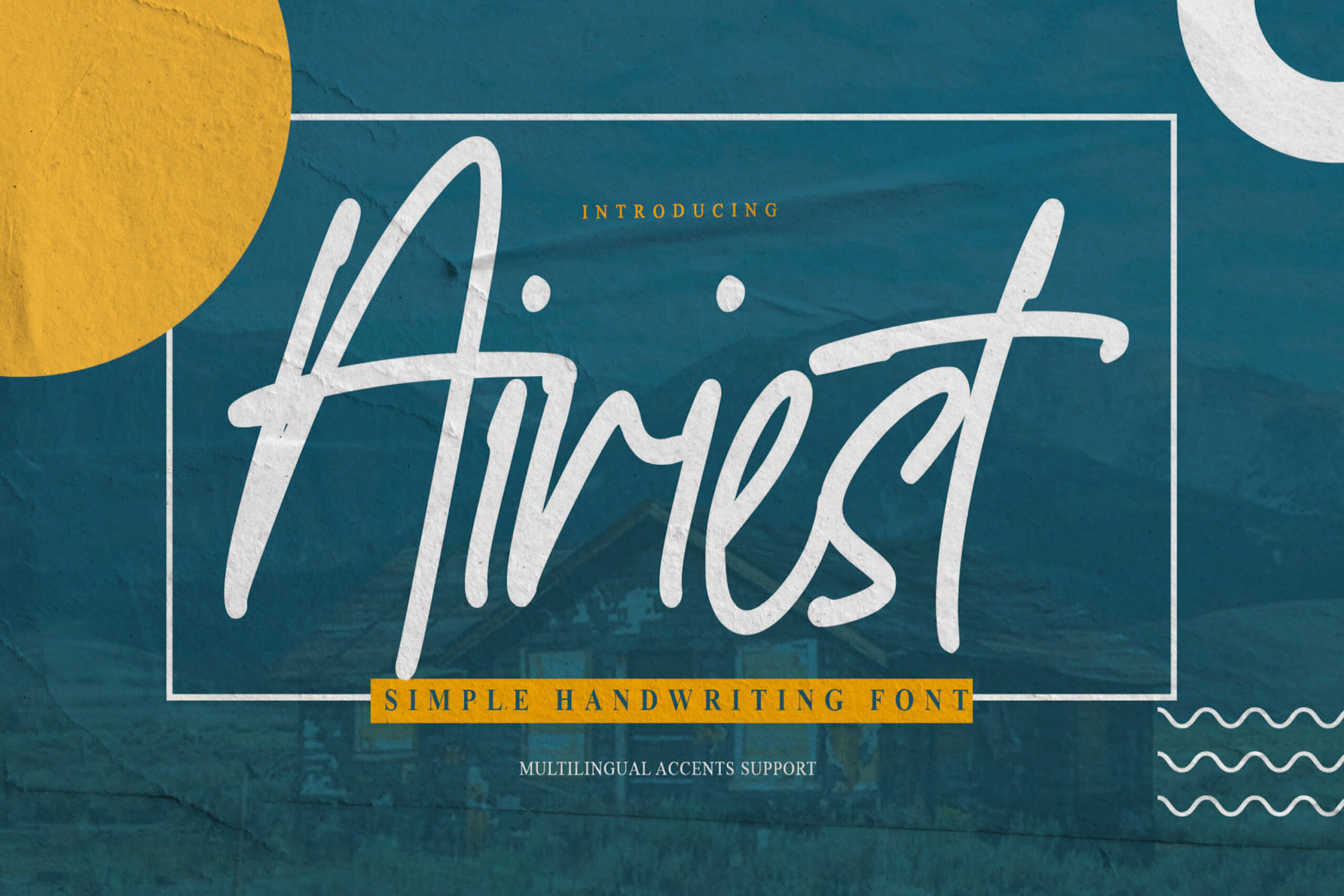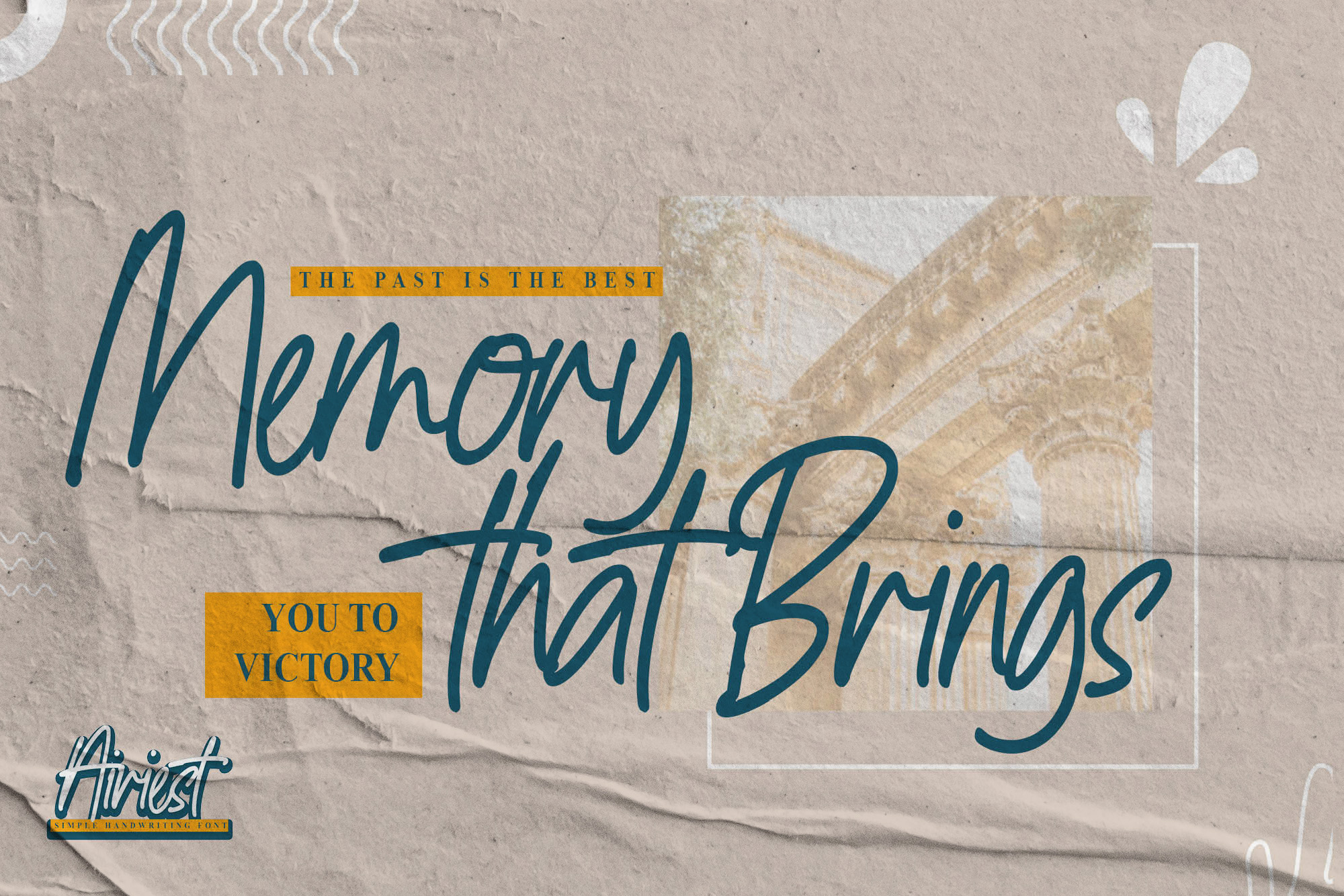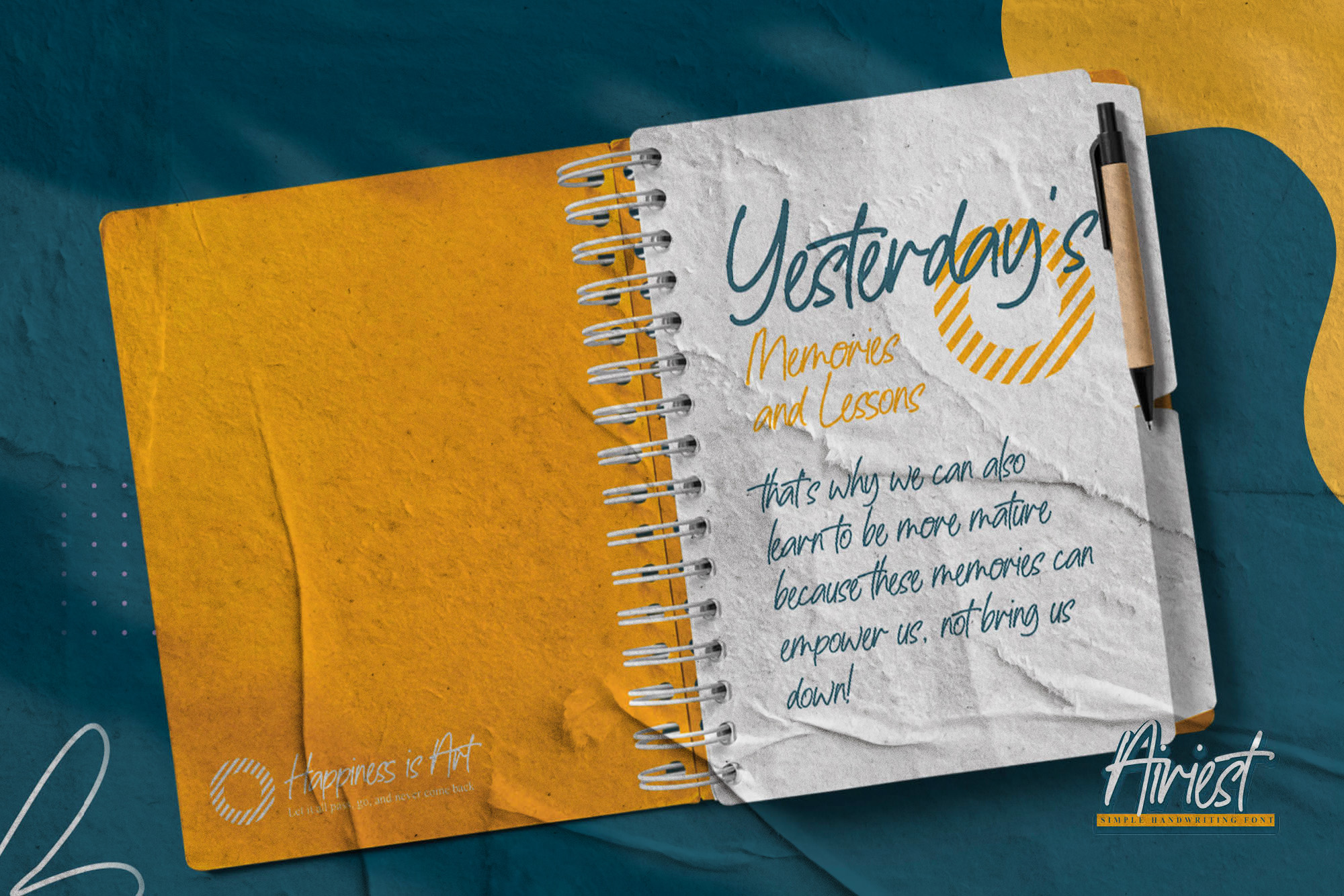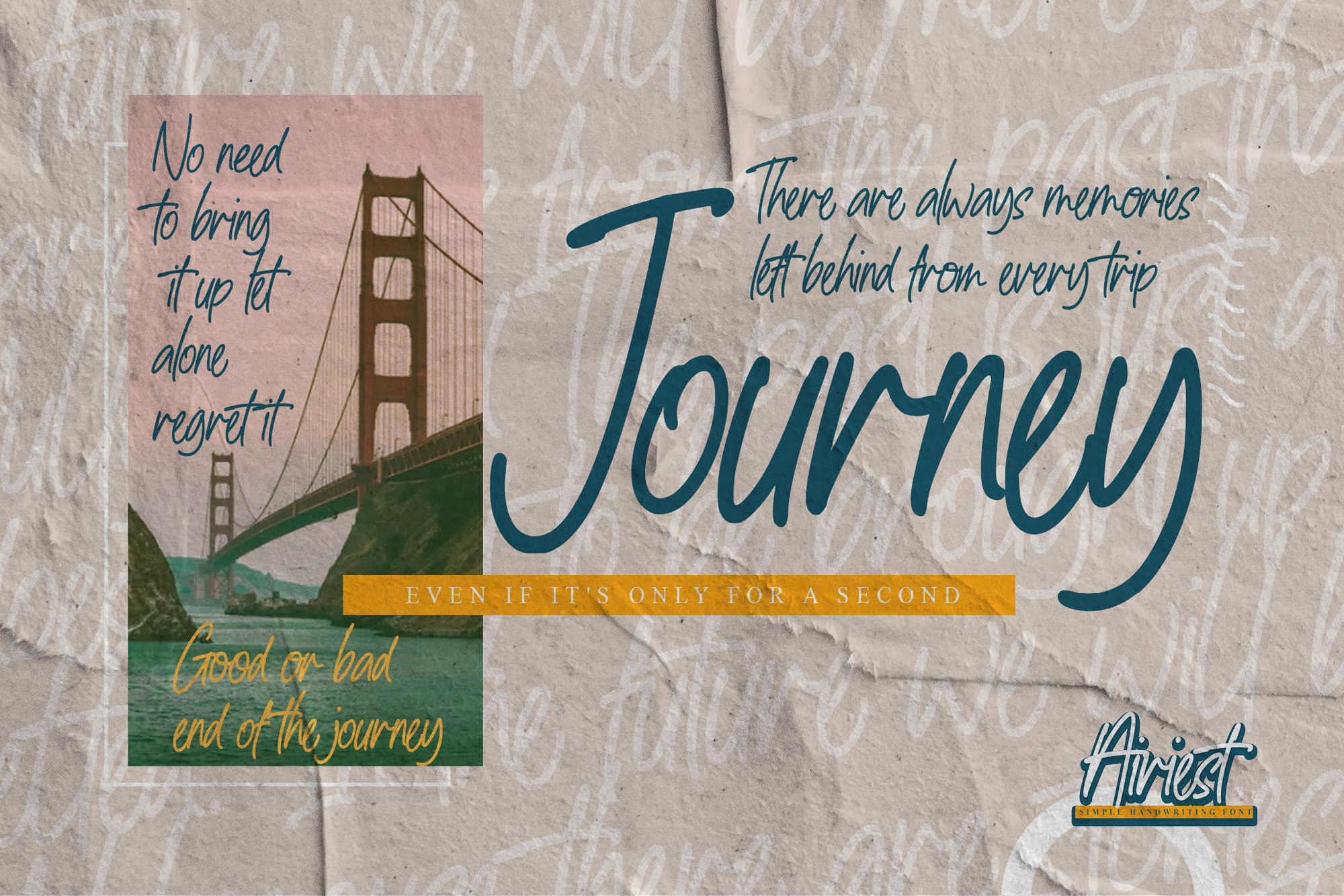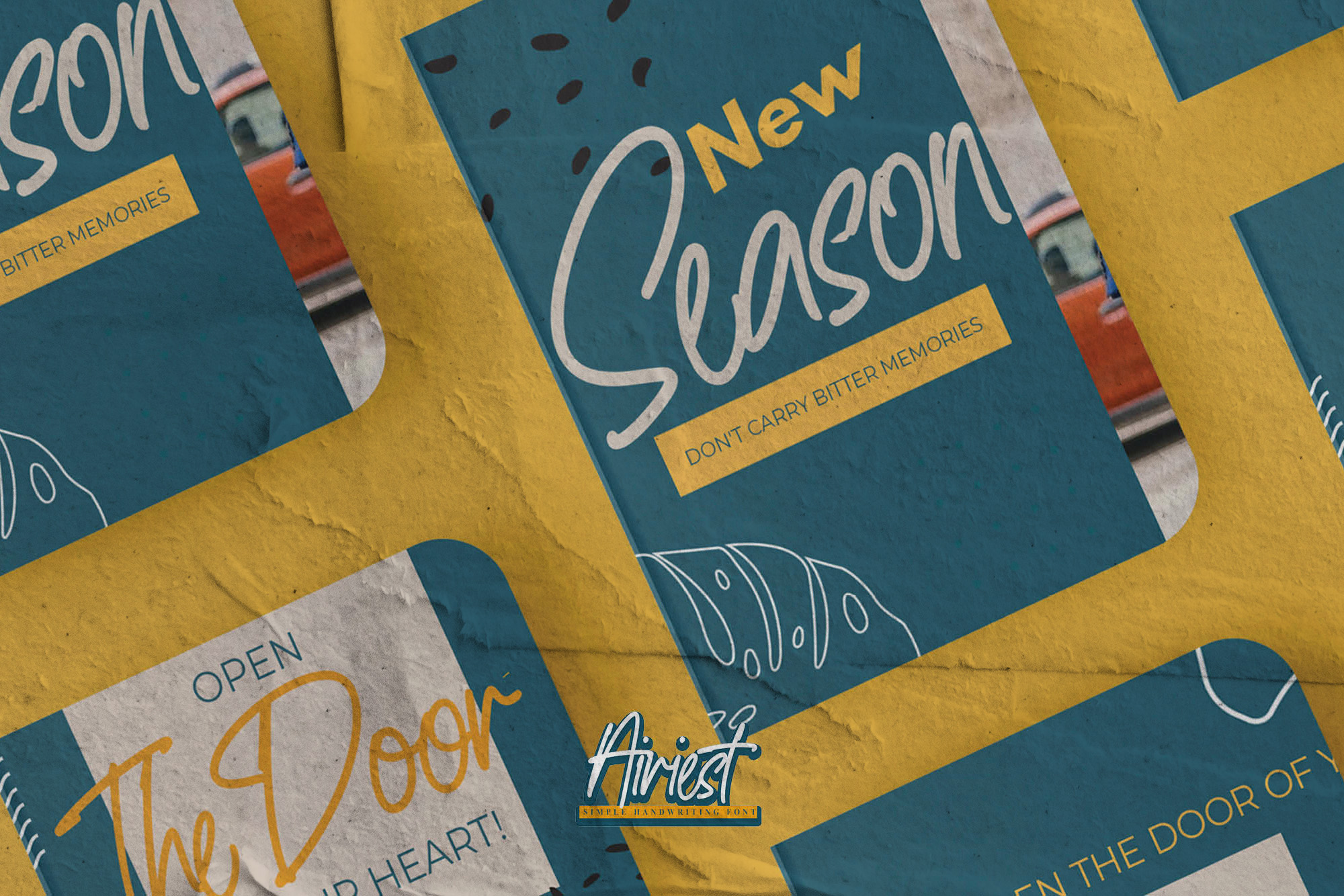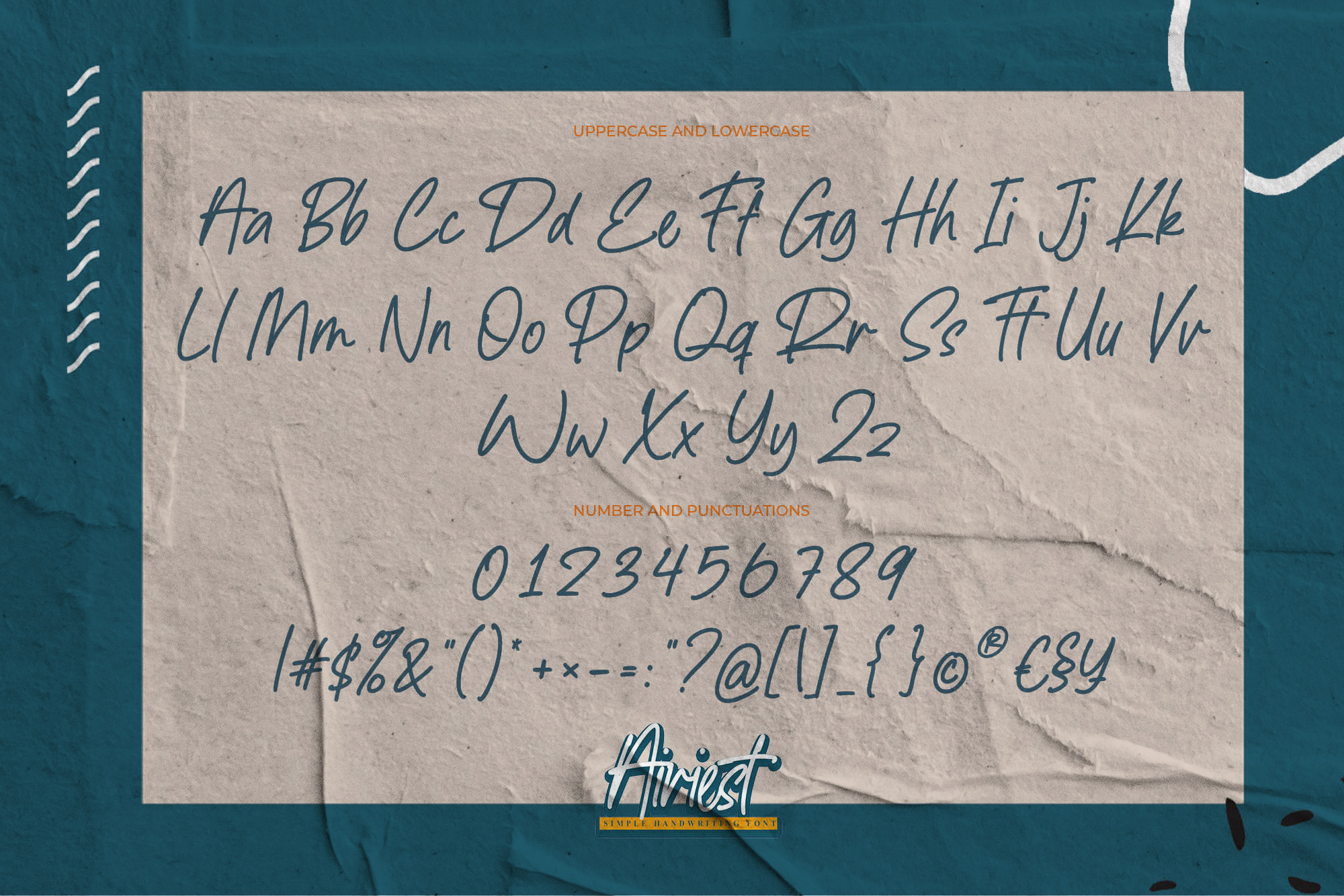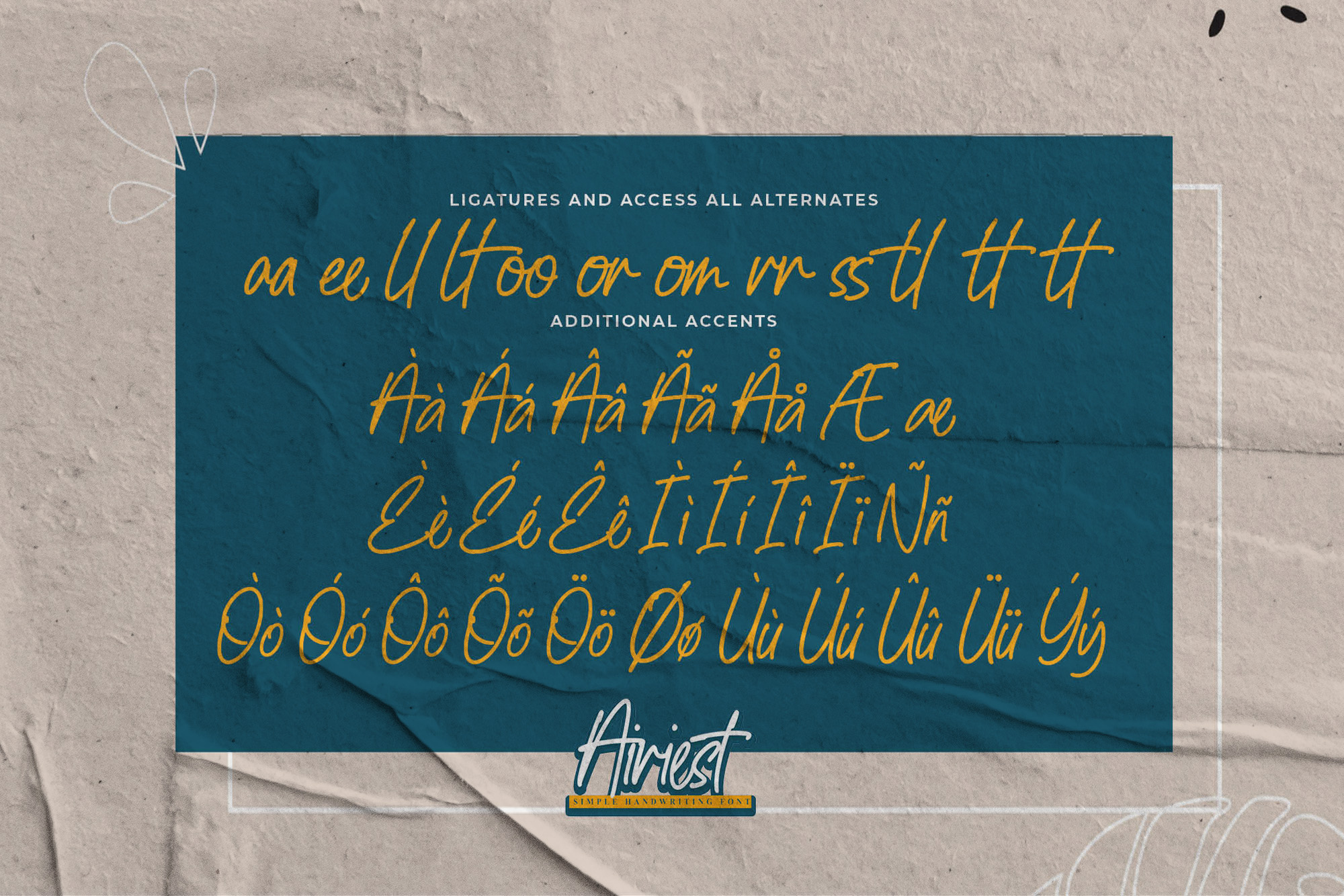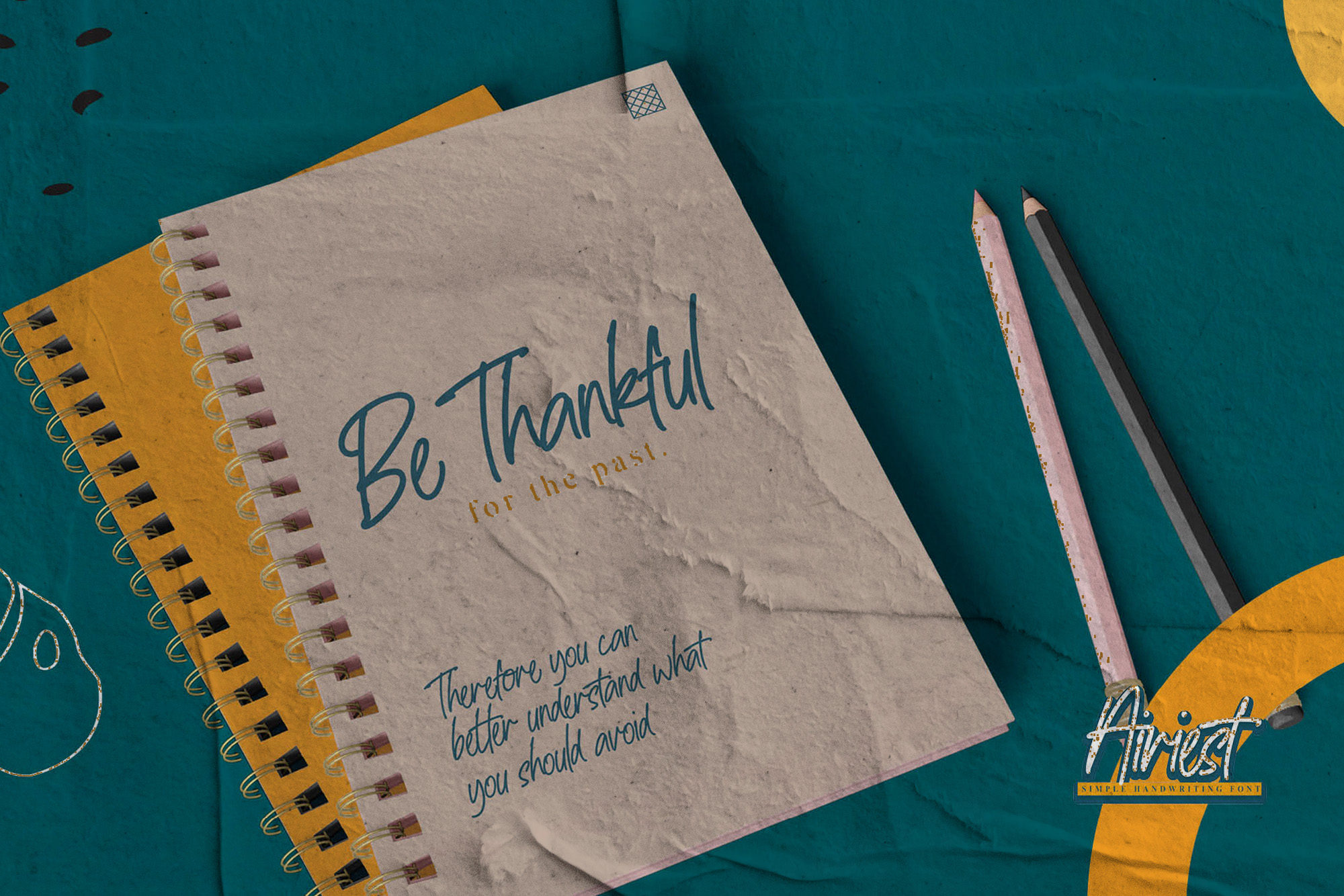
Airiest – Simple Handwriting Font , modern style and dramatic movement that is written casually and quickly.
The best for labels, poster, project designs look modern, authentic and fun. It’s perfect for labels, quotes, posters, DIY projects, branding, packaging, greeting cards, websites, photography overlays, signs, scrapbooking, tags and so much more! That is why Airiest has a textured, and authentic characteristic more natural look. You can activate Ligatures glyphs OpenType panel.